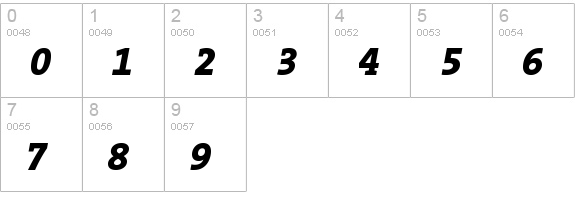
TheSerif ExtraBold Expert Italic Font Details
TheSerif ExtraBold Expert Italic is an extra-heavy, attention-grabbing, italic variant in the TheSerif typeface family \xE2\x80\x94 well suited to high-impact headlines, posters, and bold branding.
TheSerif ExtraBold Expert Italic is a stunning and versatile font that exudes strength and elegance. With its bold and slanted letterforms, this font brings a sense of sophistication to any design project. Whether you're creating a striking headline or adding emphasis to body text, TheSerif ExtraBold Expert Italic is the perfect choice. What sets this font apart is not just its exceptional design, but also its accessibility. TheSerif ExtraBold Expert Italic is freely available to download at FontsMarket.com, making it accessible to designers and creatives of all levels. This means that you can enhance your projects with this remarkable font without having to worry about any additional costs. TheSerif ExtraBold Expert Italic is a true gem for those who appreciate the power of typography. Its sleek and confident curves effortlessly capture attention, making it ideal for logos, branding, packaging, and more. Whether you're designing for print or digital media, this font is sure to make a lasting impression. With its expertly crafted italic style, TheSerif ExtraBold Expert Italic adds a touch of flair and sophistication to any design. It effortlessly conveys a sense of motion and elegance, making it perfect for fashion editorials, luxury products, and high-end advertisements. TheSerif ExtraBold Expert Italic is a typeface that demands attention and leaves a lasting impact. Its strong and bold presence is balanced by its refined and elegant details, creating a harmonious blend that is both captivating and memorable. Incorporating TheSerif ExtraBold Expert Italic into your design projects is a surefire way to elevate your creativity and make a statement. Its versatility and timeless appeal make it suitable for a wide range of applications, from editorial layouts to web design. So why wait? Enhance your designs with TheSerif ExtraBold Expert Italic, a font that combines power, elegance, and accessibility. Download it freely at FontsMarket.com and unlock a world of possibilities for your next design endeavor.